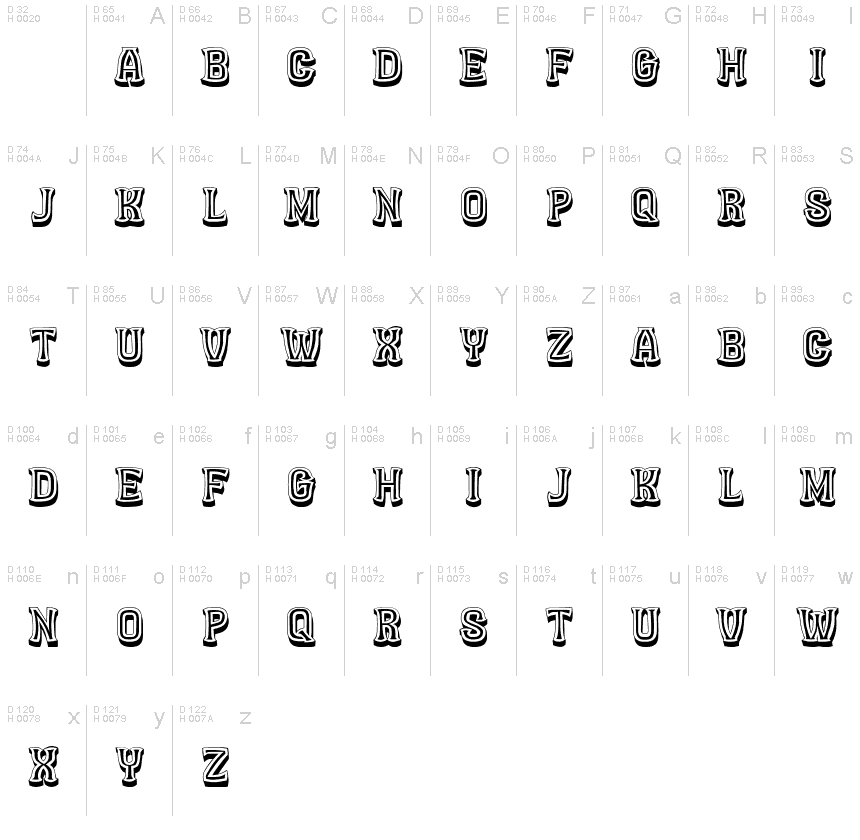
Flaca Regular
Flaca, the vintage display font by Vladimir Nikolic, is the perfect choice for projects that demand a bold and eye-catching look. Its 3D style gives depth and dimension to any design, while its bold weight ensures maximum impact. Ideal for retro-inspired branding, packaging design, and advertising campaigns, Flaca brings a touch of old-school charm to modern projects. With its intricate details and unique character shapes, this semi-bold font is sure to make any project stand out. Use it for posters, logos or even apparel designs - Flaca has got you covered!